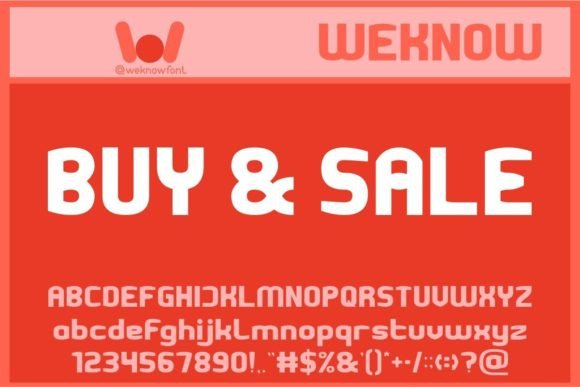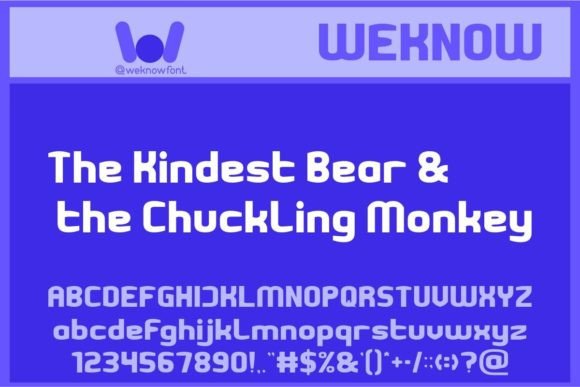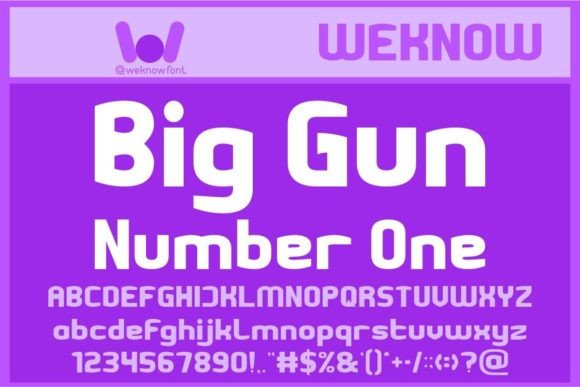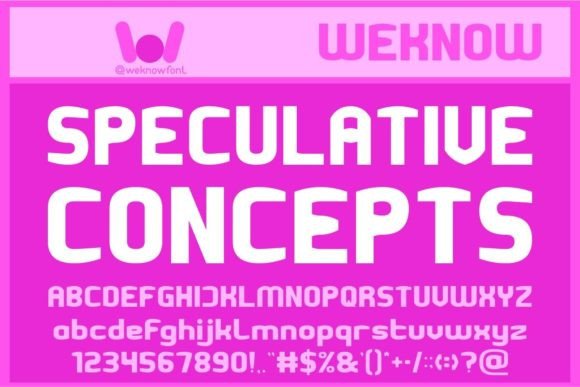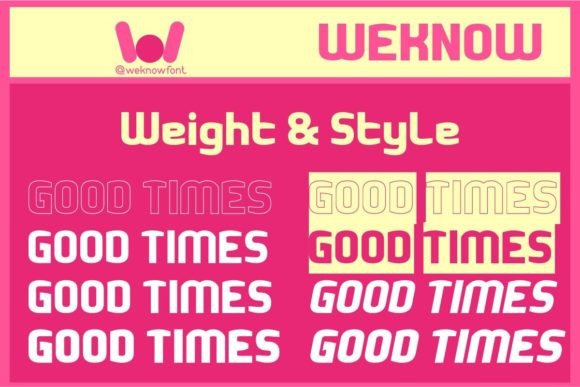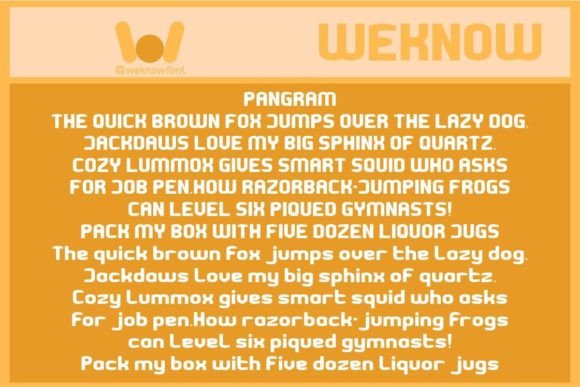
Discover the Versatility of Good Times Font: A Designer’s Delight
In the vast and ever-evolving world of typography, certain fonts stand out for their unique blend of style, versatility, and charm. Good Times font is one such gem that has been making waves in the design community. This sans-serif font strikes a perfect balance between boldness and playful smoothness, making it an excellent choice for a wide range of design projects. From crafting impactful logos and logotypes to adding a spirited touch to headlines, Good Times is a font that can elevate any design to new heights.
The Perfect Blend of Boldness and Smoothness
Good Times emanates an endearing blend of boldness and playful smoothness that lands it a perfect spot in the world of sans-serif fonts. This unique combination allows it to stand out in a crowd, making it an ideal choice for designers looking to create striking visuals. Whether you’re working on a logo, a headline, or a brand identity, Good Times brings a level of sophistication and elegance that is hard to match.
Impactful Logos and Logotypes
One of the key strengths of Good Times is its ability to carve impactful logos and logotypes. In today’s competitive market, a well-designed logo is crucial for any brand looking to establish a strong identity. Good Times, with its bold and smooth characteristics, helps create logos that are not only visually appealing but also memorable. This font ensures that your brand stands out and leaves a lasting impression on your audience.
A Spirited Splash in Headlines and Corporate Identities
Good Times adds a spirited splash to headlines, making it an excellent choice for newspapers, magazines, and digital publications. Its adaptability and versatility also make it a favorite among corporate brands looking to solidify their identities. With Good Times, you can create headlines that are not only eye-catching but also convey the tone and personality of your brand.
Fashion Industry Favorite
The fashion industry can benefit significantly from the standout charm Good Times brings to apparel designs. Fashion brands looking to make a statement with their typography will find Good Times to be an indispensable tool. Whether it’s for clothing labels, advertising campaigns, or fashion magazines, Good Times adds a touch of sophistication and style that is sure to captivate audiences.
Beyond Fashion: Versatility Across Industries
The adaptability of Good Times sees it shine in various applications beyond fashion. From magazines and books to music and movies, and even video games, Good Times proves to be a versatile font that can adapt to any creative project. Its unique charm and character make it an excellent choice for adding a personal touch to any design.
Bringing Life to Comics and Cartoons
The irresistible allure of Good Times extends to comics and cartoons, where it breathes life into legendary characters. Designers working on comic books, cartoons, and animated series will find Good Times to be a perfect fit for their projects. Its playful smoothness and boldness make it an ideal choice for speech bubbles, titles, and character designs.
Digital Creatives Rejoice
Digital creatives aren’t left out either – YouTube content creators, Instagram influencers, and website builders will discover an indispensable tool in Good Times for all their design projects. In today’s digital age, having a font that can adapt to various online platforms is crucial. Good Times, with its clean and modern design, ensures that your digital content stands out and engages your audience effectively.
In conclusion, Good Times font is a versatile and charming addition to any designer’s toolkit. Its unique blend of boldness and playful smoothness makes it an excellent choice for a wide range of projects, from logos and headlines to fashion designs and digital content. Whether you’re a professional designer or a crafty DIY enthusiast, Good Times is sure to become one of your go-to fonts for all your creative endeavors.
Key Features of Good Times Font:
- Unique Blend: Combines boldness with playful smoothness.
- Versatility: Suitable for various design projects, including logos, headlines, and corporate identities.
- Fashion Forward: Adds a standout charm to apparel designs.
- Adaptability: Shines in magazines, books, music, movies, and video games.
- Digital Friendly: Perfect for YouTube, Instagram, and website designs.
With Good Times font, the possibilities are endless. Explore its versatility and charm in your next design project and experience the difference it can make.